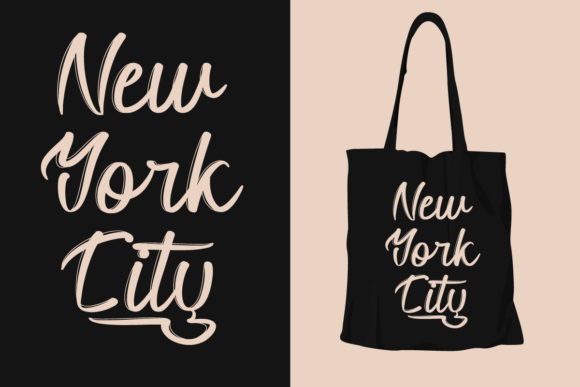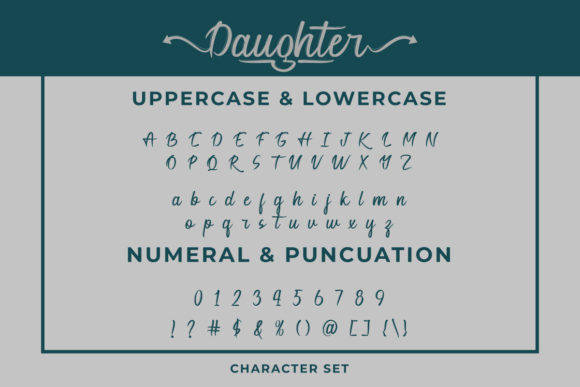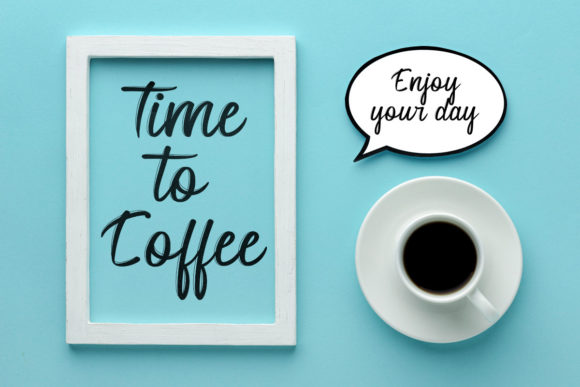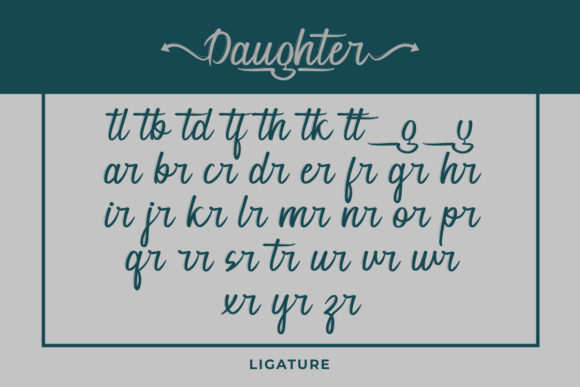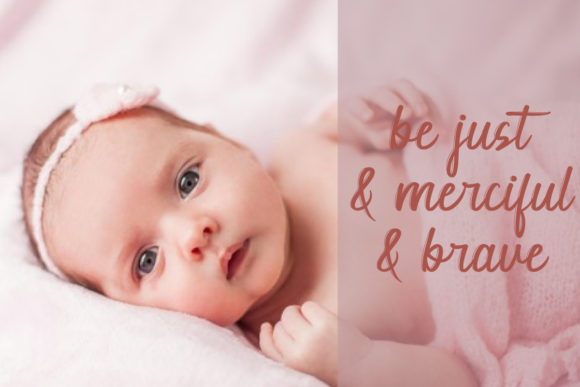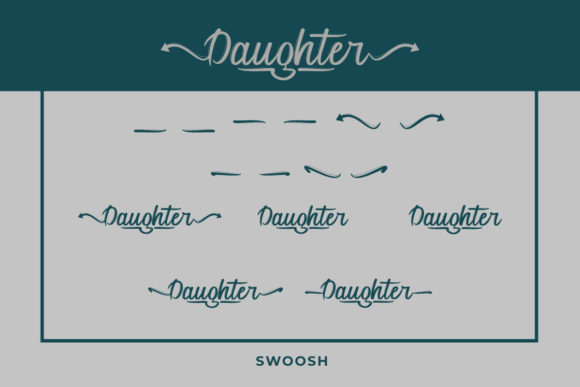
Introducing Daughter Font: The Perfect Addition to Your Creative Projects
Are you tired of using the same old fonts in your designs? Look no further than Daughter Font, a beautiful script font that is sure to add a touch of elegance and playfulness to any project. With its charming and whimsical characters, Daughter Font is the perfect choice for designers and crafters looking to make their work stand out.
What is Daughter Font?
Daughter Font is a well-balanced script font that features charming, playful characters that seem to dance along the baseline. Its unique and eye-catching design makes it perfect for a variety of creative projects, from wedding invitations and branding materials to social media graphics and crafts.
Key Features of Daughter Font
- Charming and Playful Characters: Each character in Daughter Font has been carefully crafted to be charming and playful, making it perfect for projects that require a touch of whimsy.
- Well-Balanced Design: The font has a well-balanced design, making it easy to read and visually appealing.
- Script Font Style: Daughter Font is a script font, giving it a elegant and sophisticated feel.
Why Use Daughter Font?
There are many reasons why Daughter Font is a great choice for your creative projects. Here are just a few:
- Adds a Touch of Elegance: The elegant design of Daughter Font makes it perfect for projects that require a touch of sophistication.
- Perfect for Creative Projects: Whether you’re working on a wedding invitation, branding material, or social media graphic, Daughter Font is a great choice.
- Makes Your Work Stand Out: The unique and eye-catching design of Daughter Font is sure to make your work stand out from the crowd.
How to Use Daughter Font
Using Daughter Font is easy. Here are a few tips to get you started:
- Pair it with Other Fonts: Daughter Font pairs well with other fonts, making it easy to create a unique and visually appealing design.
- Use it for Headings and Titles: The script font style of Daughter Font makes it perfect for headings and titles.
- Experiment with Different Colors: The playful design of Daughter Font makes it easy to experiment with different colors and add a pop of color to your design.
Who Can Benefit from Using Daughter Font?
Daughter Font is a versatile font that can be used by a variety of designers and crafters, including:
- Graphic Designers: Graphic designers can use Daughter Font to add a touch of elegance and sophistication to their designs.
- Wedding Planners: Wedding planners can use Daughter Font to create beautiful wedding invitations and other wedding materials.
- Crafters: Crafters can use Daughter Font to add a personal touch to their crafts, such as scrapbooking and card making.
In conclusion, Daughter Font is a beautiful script font that is sure to add a touch of elegance and playfulness to any creative project. With its charming and whimsical characters, well-balanced design, and script font style, it’s the perfect choice for designers and crafters looking to make their work stand out. So why not give it a try and see how it can elevate your designs?